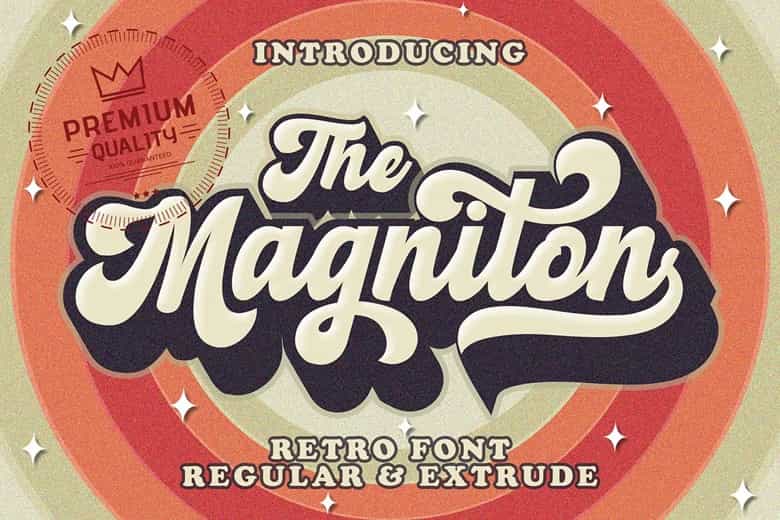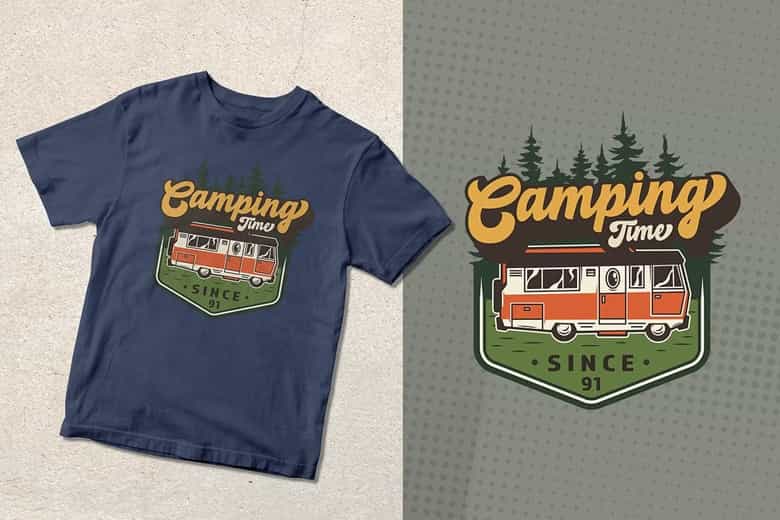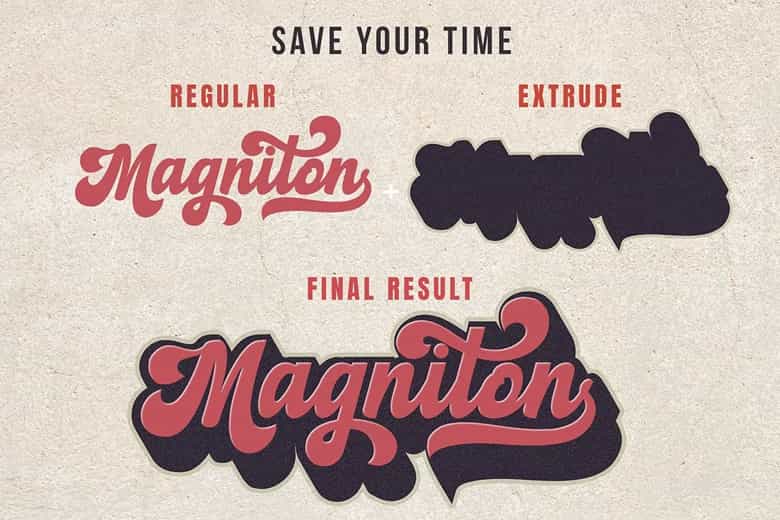
The Magniton is a retro script font that has a great vintage feel to it which will give any design a vintage look and feel. Magniton is suitable for branding, package design, poster design, logotype, social media, label, watermark, fashion, photography, and much more.